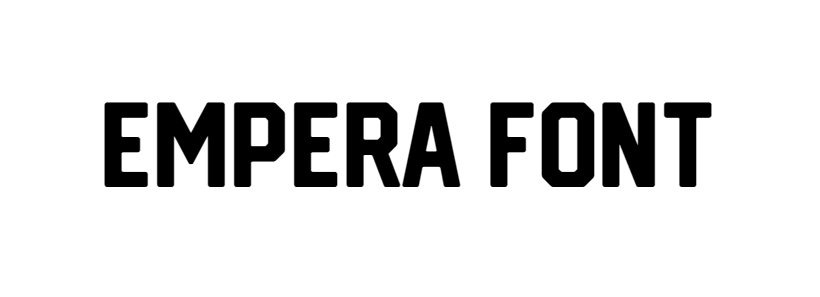
Empera Font
Empera
Empera is a fancy font created by Supertuben and released through BoxTube Labs. Bold and full of character, it's built to stand out rather than blend in. The free download includes six styles, and you can try every one of them with your own text in the preview above.
- Font styles: 6 (Regular, Vintage, Soft Vintage, Soft, Inline Vintage and Inline)
- Glyphs: 214 in the Regular style
What You Can Type With Empera
With complete upper and lowercase letters and all ten digits, Empera is ready for real wording, not just a single headline. Common punctuation such as &, !, ? and @ is included as well. It also has the accented letters you need for Spanish, French, German, Portuguese and Italian.
Where Empera Works Best
Think of Empera for posters, logos and eye-catching headlines. Use it for one standout word or headline and let simpler fonts handle the rest. Because the family has more than one style, you can mix them in a single design for headings, subheadings and highlights.
Does Empera support accented letters?
Yes. Empera includes the accented letters needed for Spanish, French, German, Portuguese and Italian, so it works for more than just English.